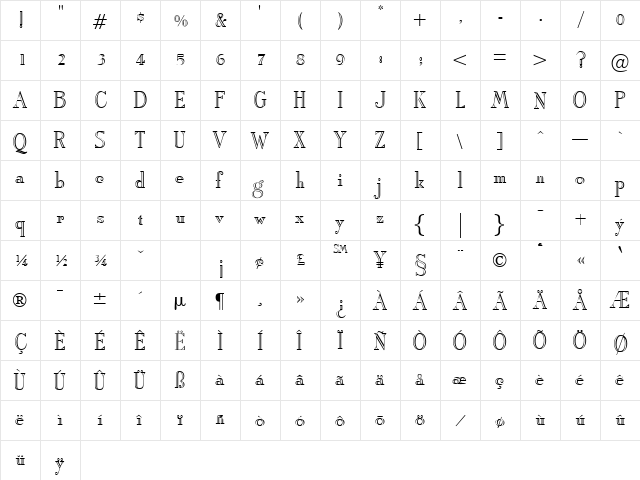
ArbiterOpenface Regular
Design Context for ArbiterOpenface Typeface
ArbiterOpenface takes a measured approach to typography — its balanced proportions and neutral character make it a reliable workhorse for both digital and print work.